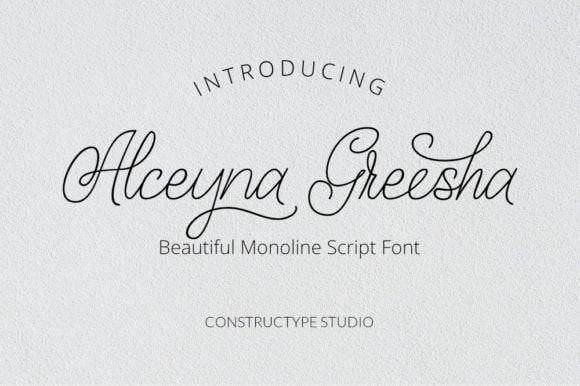
Alceyna Greesha Font
Alceyna Greesha is an elegant and dainty handwritten font that features sweet and delicate swashes. This original look will appeal to a wide range of crafty ideas, from letterheads and titles to stationery.